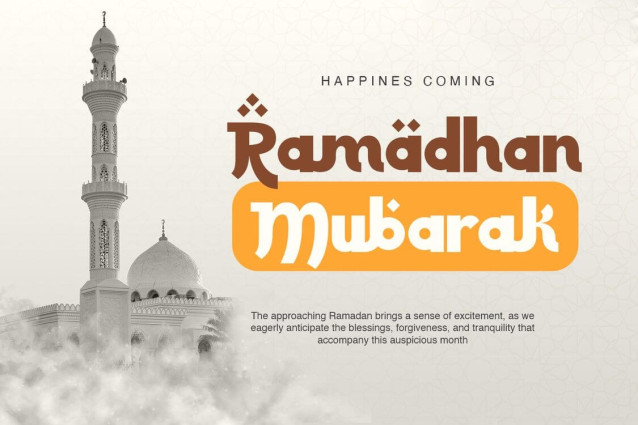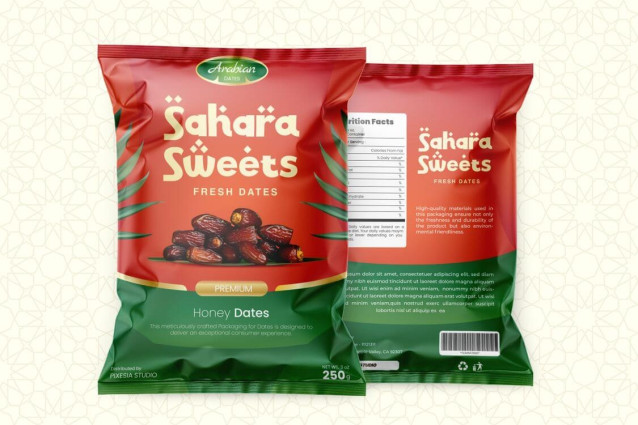
Jummah Font
Jummah Font is a arabic bold display font that captures the essence of Arabic calligraphy. This font features a striking bold design that adds a touch of elegance and power to any project. The intricate details and elegant curves of Jummah make it a versatile choice for both modern and traditional designs.
Jummah is perfectly suited for branding, logotype, social media posts, headlines, logo, greating card, advertising, product packaging, label, photography, watermark, t-shirt, website design, invitation, poster, stationery and any projects seeking a touch of authentic and artistic.